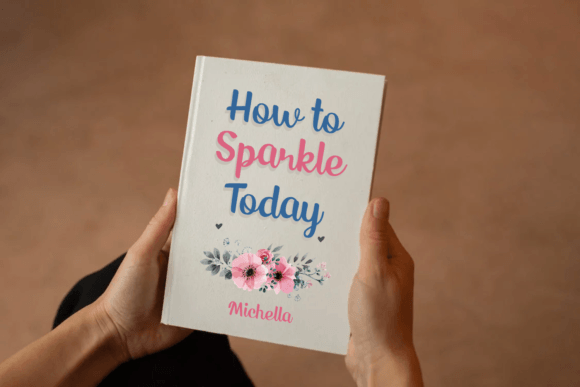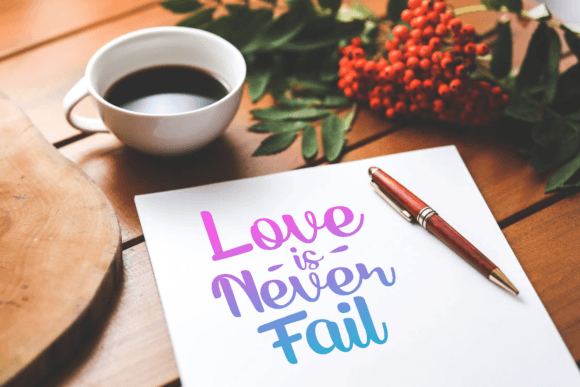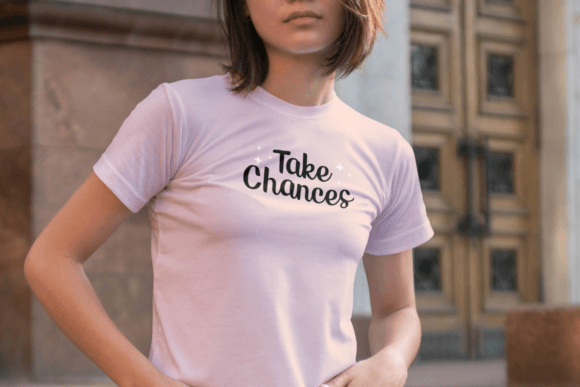
Introducing Alkie Font: Elevate Your Typography Designs with a Bold and Beautiful Script Font
Are you looking for a font that can add a charming note to your typography designs? Look no further than Alkie Font, a bold and beautiful script font that can elevate any creation. With its stunning design and versatility, Alkie Font is perfect for designers and crafters who want to create gorgeous invitations, business cards, greeting cards, labels, logos, watermarks, product packaging, and more.
What Makes Alkie Font So Special?
Alkie Font is a PUA (Private Use Area) encoded font, which means that you can easily access all the glyphs and swashes with just a few clicks. This font is designed to be user-friendly, making it easy for you to create stunning typography designs without any hassle. Whether you’re a professional designer or a crafter, Alkie Font is perfect for anyone who wants to add a touch of elegance and sophistication to their designs.
Endless Design Possibilities with Alkie Font
With Alkie Font, the design possibilities are endless. You can use it to create:
- Gorgeous invitations for weddings, parties, and other special occasions
- Professional business cards that make a lasting impression
- Beautiful greeting cards for holidays and special events
- Elegant labels for products, gifts, and more
- Unique logos and watermarks for your brand or business
- Stunning product packaging that stands out on store shelves
Why Choose Alkie Font?
There are many reasons why Alkie Font stands out from other script fonts. Here are just a few:
- Bold and Beautiful Design: Alkie Font has a stunning design that’s both bold and beautiful. Its unique lettering style is sure to grab attention and make your designs stand out.
- Versatile: Alkie Font can be used for a wide range of design projects, from invitations and business cards to product packaging and more.
Tips for Using Alkie Font
Here are a few tips for using Alkie Font to get the most out of this beautiful script font:
- Experiment with Different Sizes: Alkie Font looks great in a variety of sizes, from small and delicate to large and bold. Experiment with different sizes to find the one that works best for your design.
- Play with Glyphs and Swashes: With Alkie Font, you have access to a wide range of glyphs and swashes. Play around with these to add a unique touch to your designs.
- Pair it with Other Fonts: Alkie Font pairs well with a variety of other fonts. Experiment with different pairings to find the one that works best for your design.